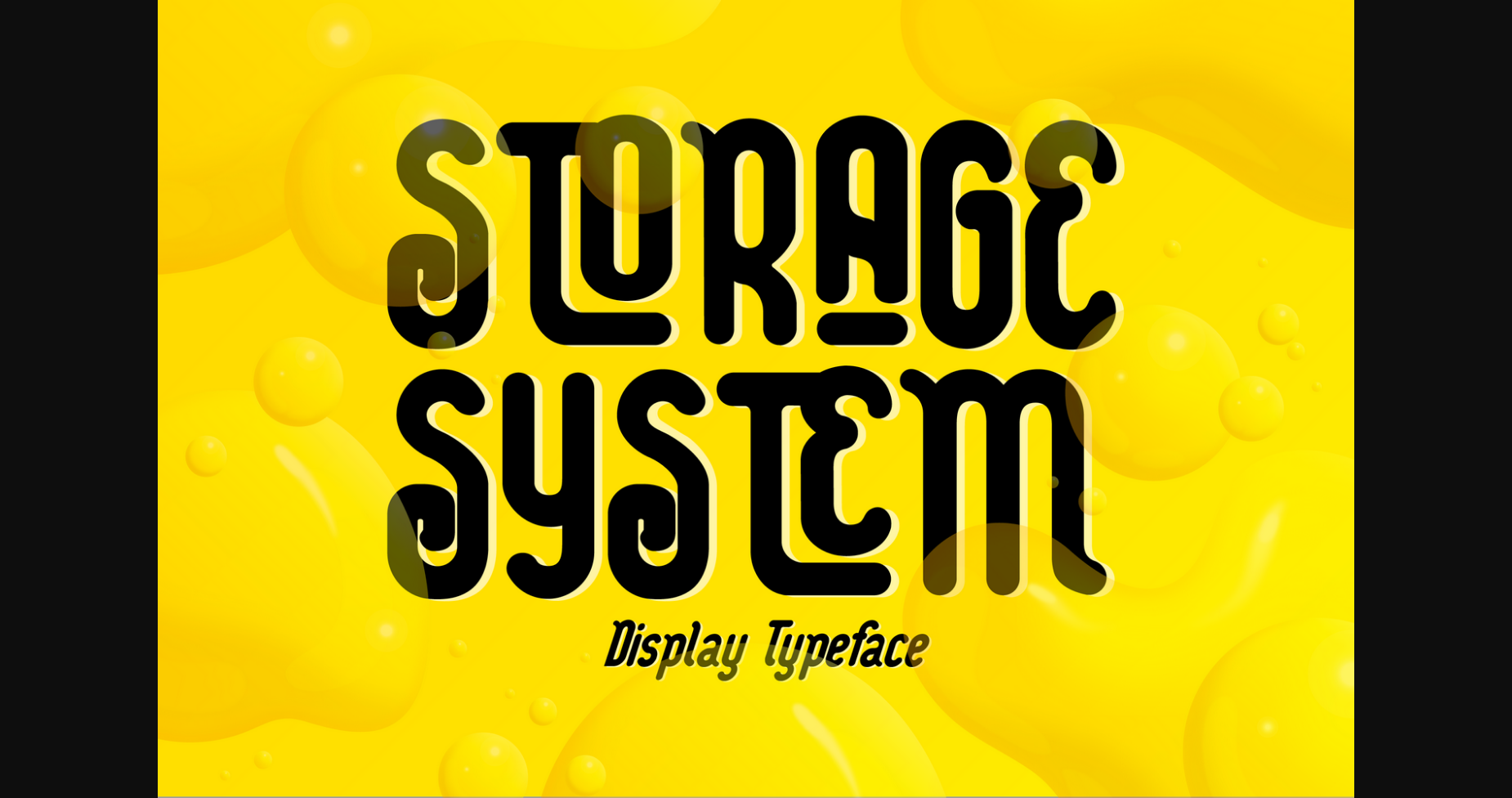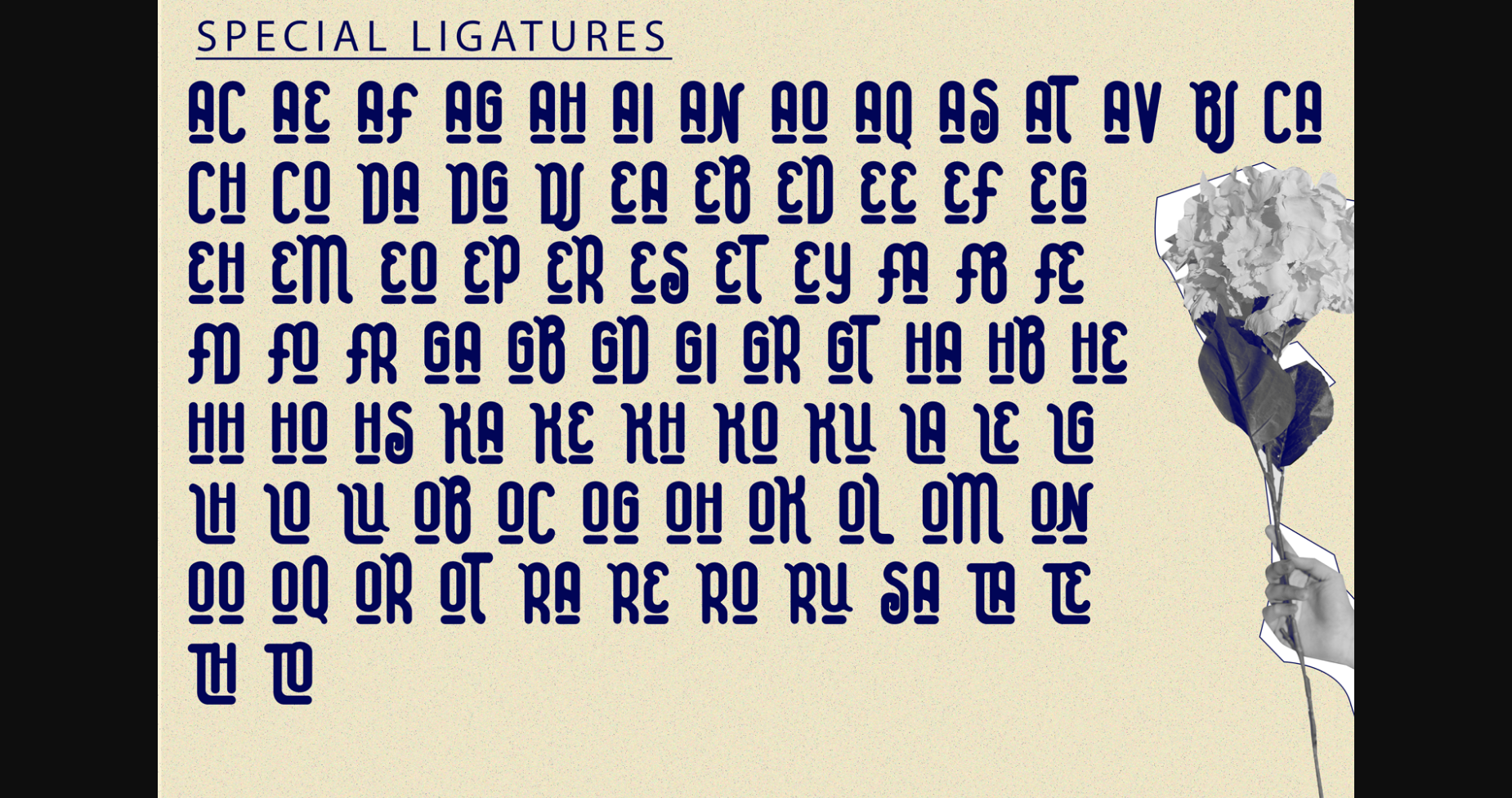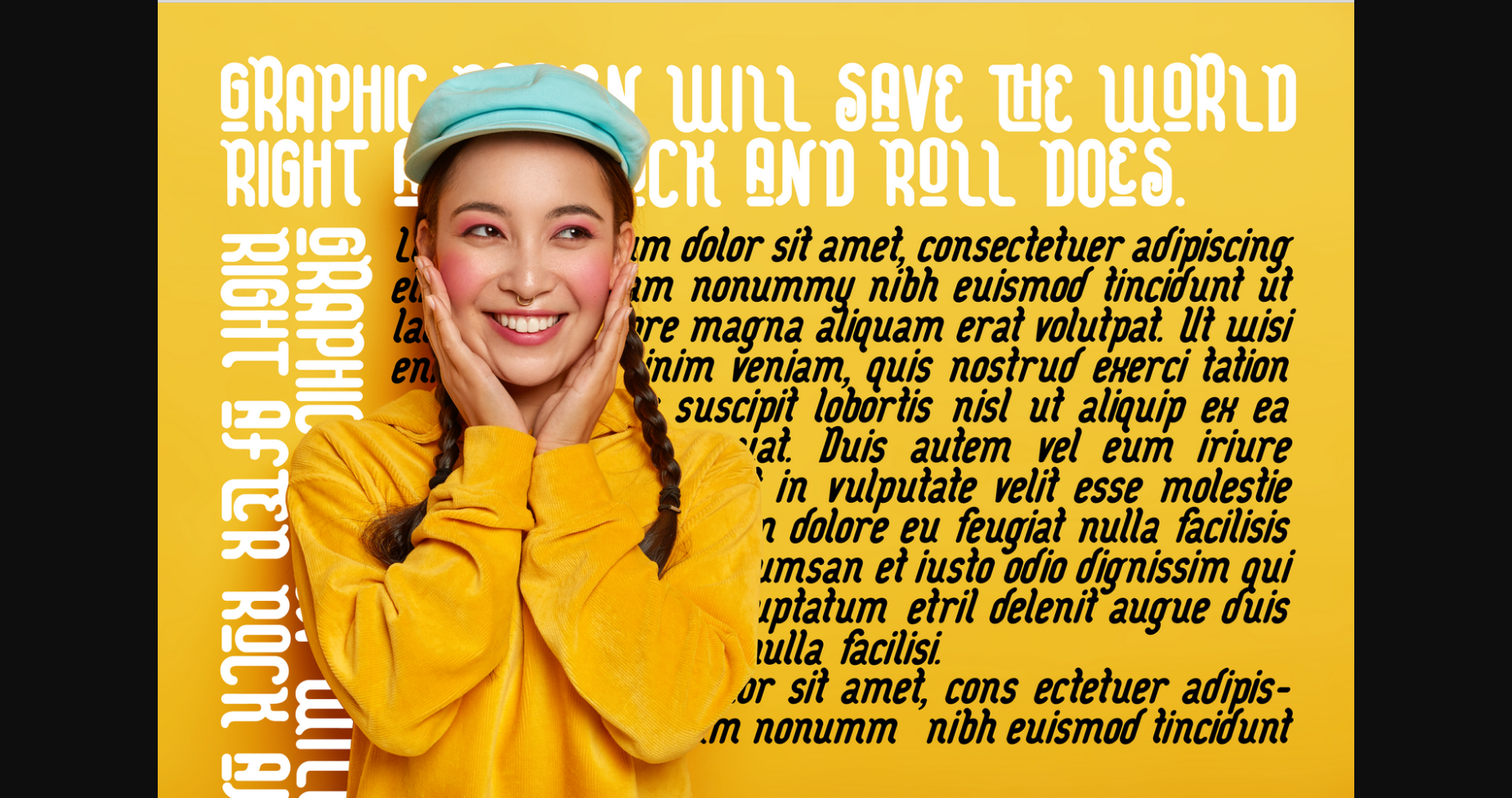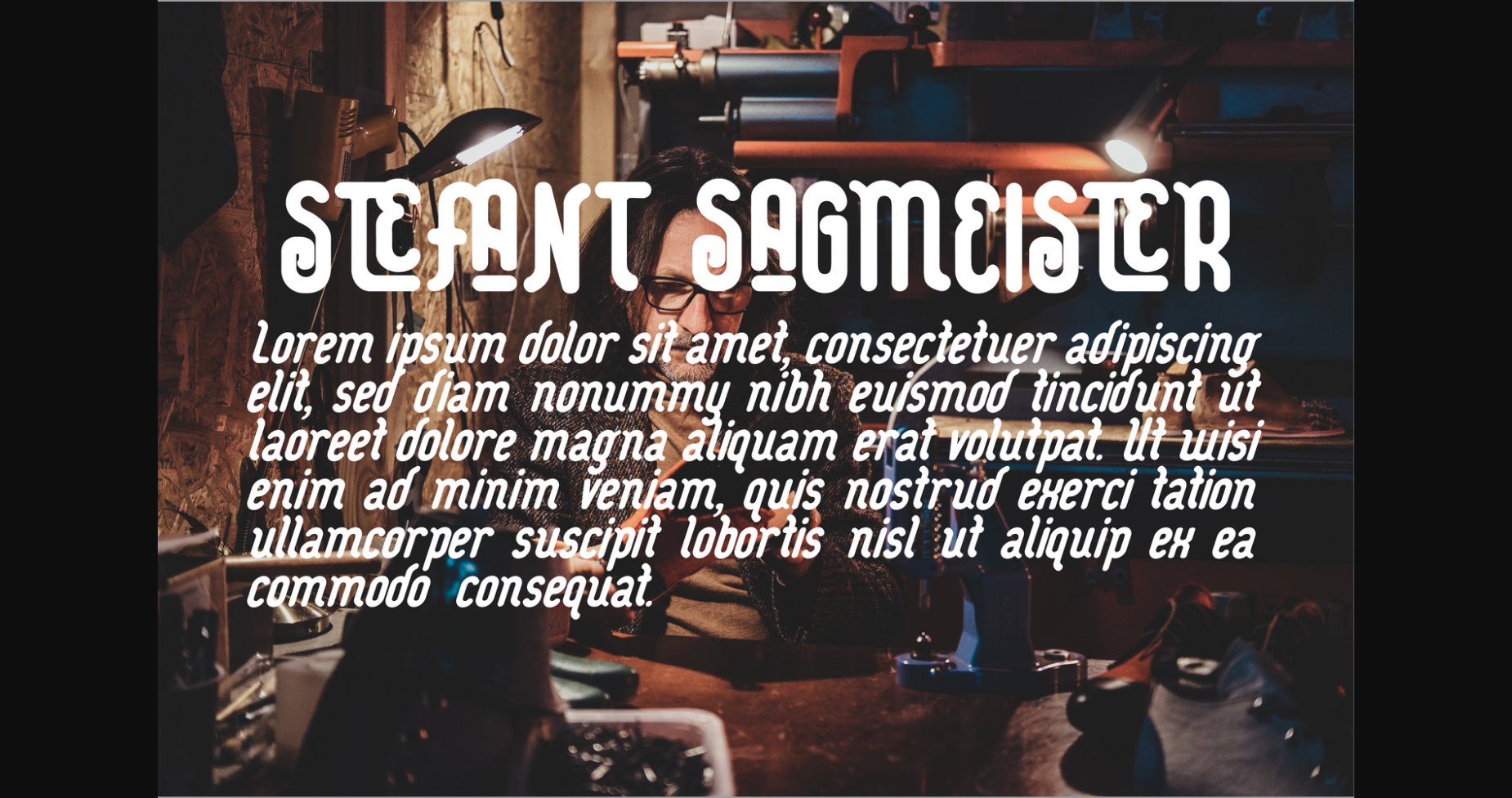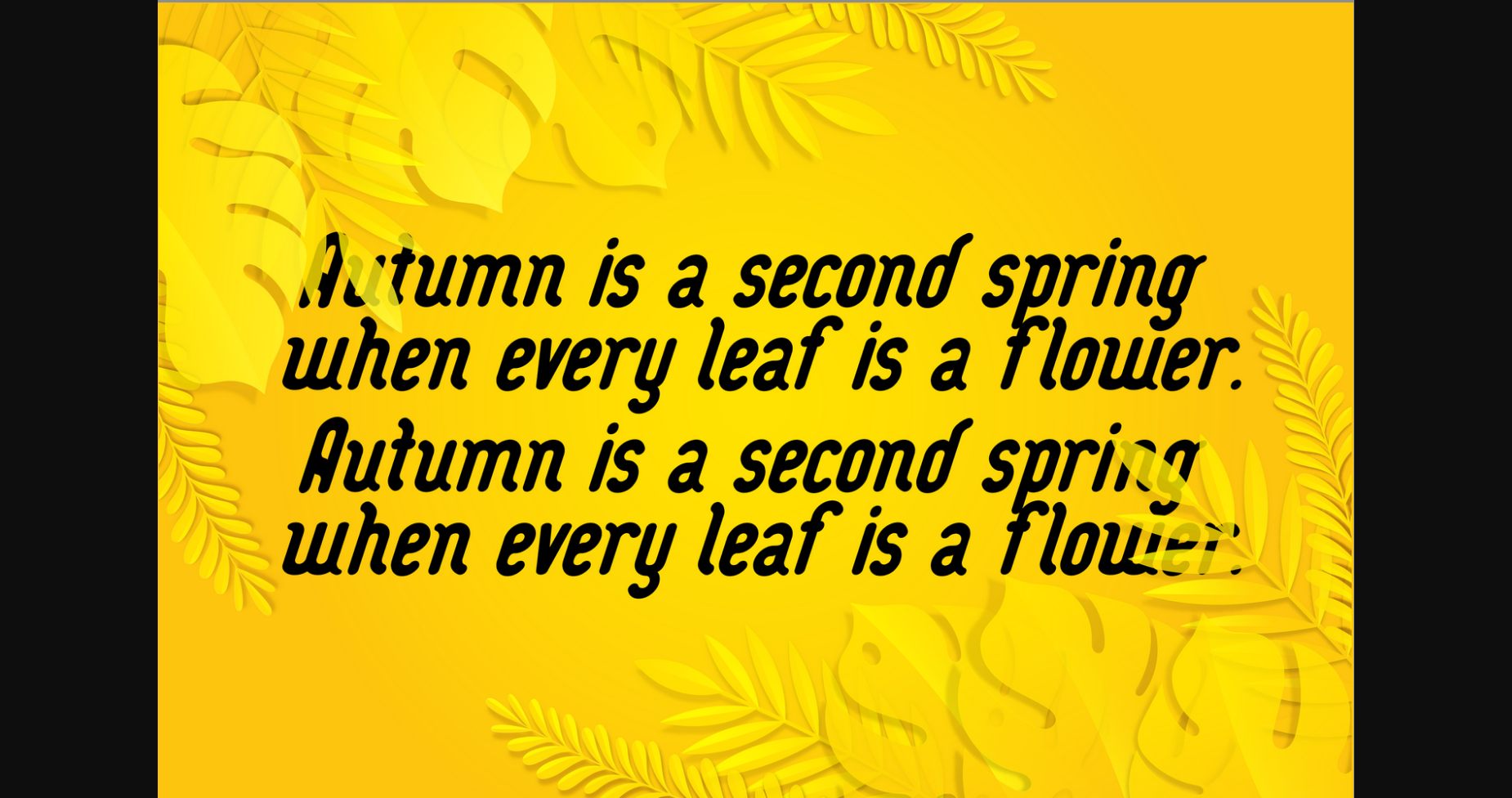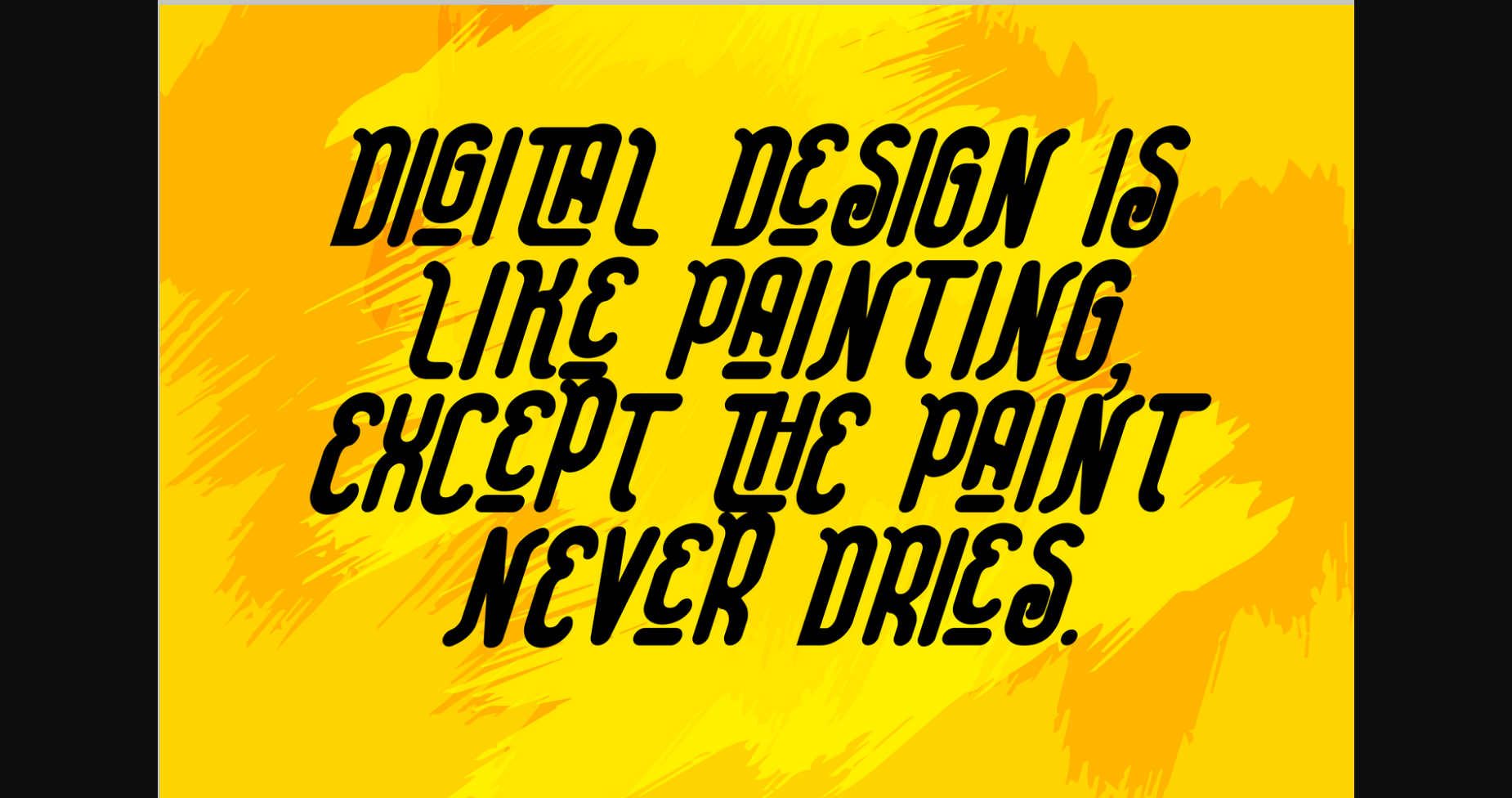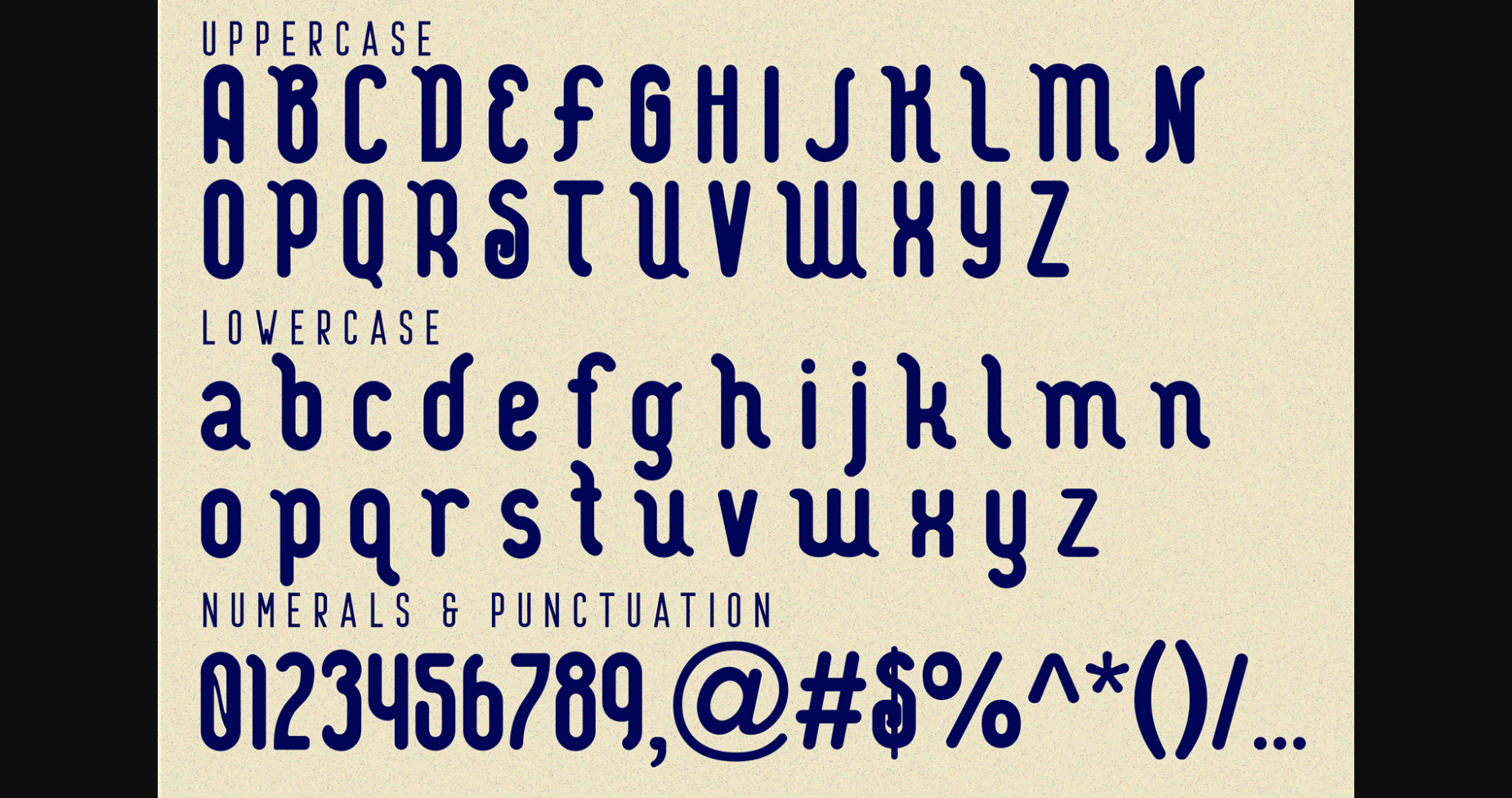
Storage System Font
About Storage System Font
Storage System is a simple, condensed sans serif font with a bold and complex personality. It looks smooth in any layout with its sleek rounded lines, and you can use it for your magazines, brochures, editorial layouts, awesome headings, and more! This font is PUA encoded which means you can access all the glyphs and ligatures with ease!